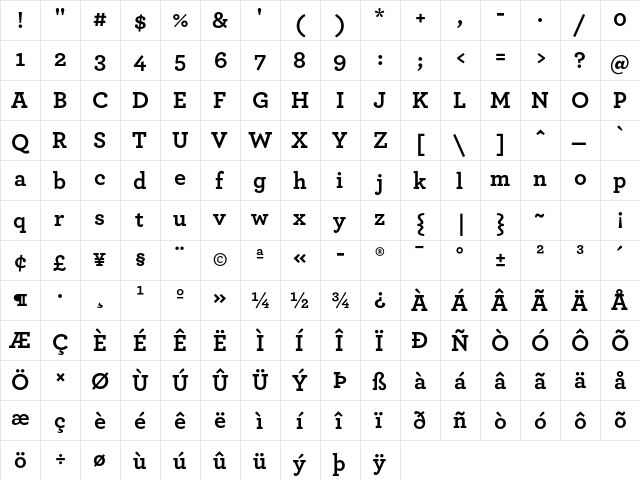
ArcherPro Bold Font Preview
ArcherPro Bold
Design Context for ArcherPro Typeface
ArcherPro takes a measured approach to typography — its balanced proportions and neutral character make it a reliable workhorse for both digital and print work. Its bold stroke weight gives it real presence on the page.
Pro Tip: Pair ArcherPro with a font of contrasting weight or personality to build a more expressive typographic hierarchy.